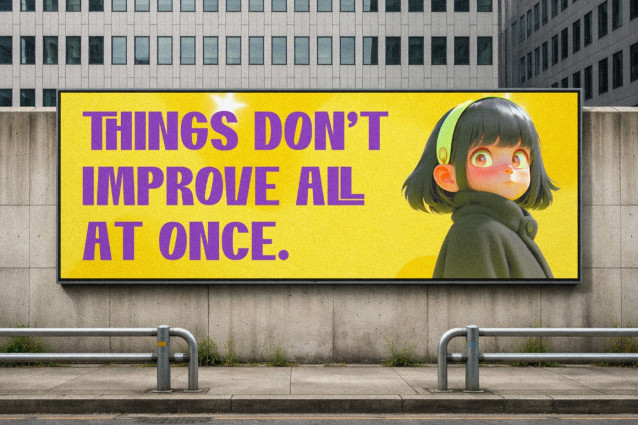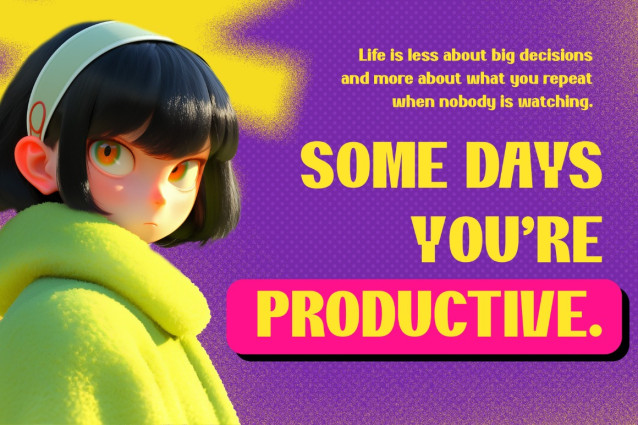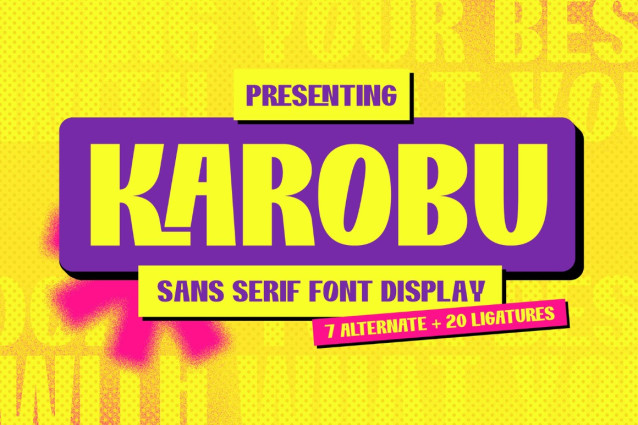
Karobu Font
Karobu Font is a sans serif display font designed to make a strong and modern statement. With its clean lines, bold shapes, and confident character, this font is perfect for headlines, logos, posters, branding, and contemporary design projects. Karobu delivers clarity and impact while maintaining a sleek, professional feel, making it an excellent choice for designs that demand attention and style.